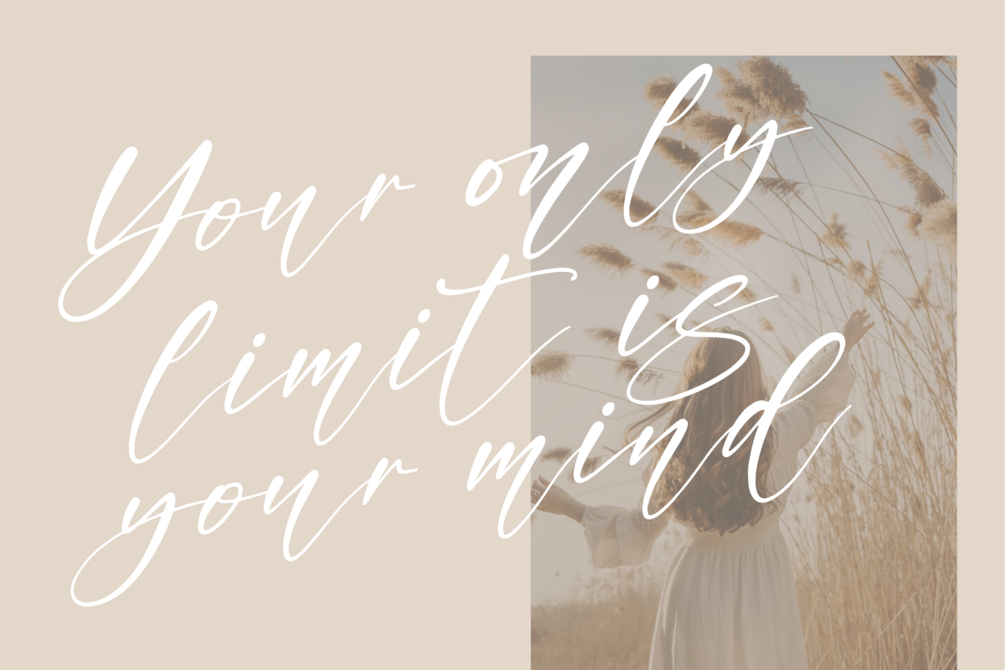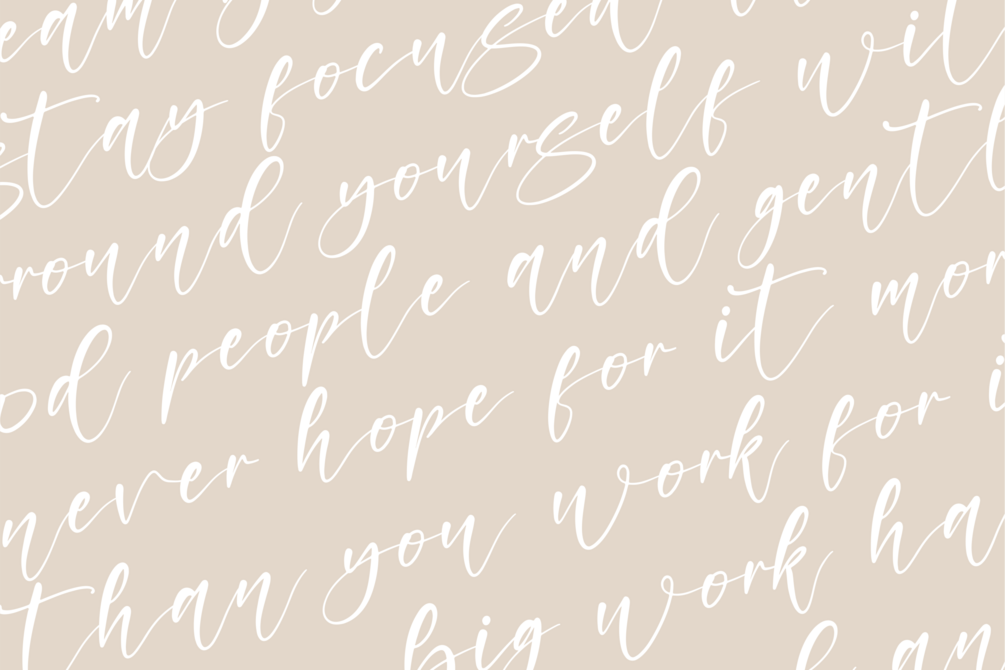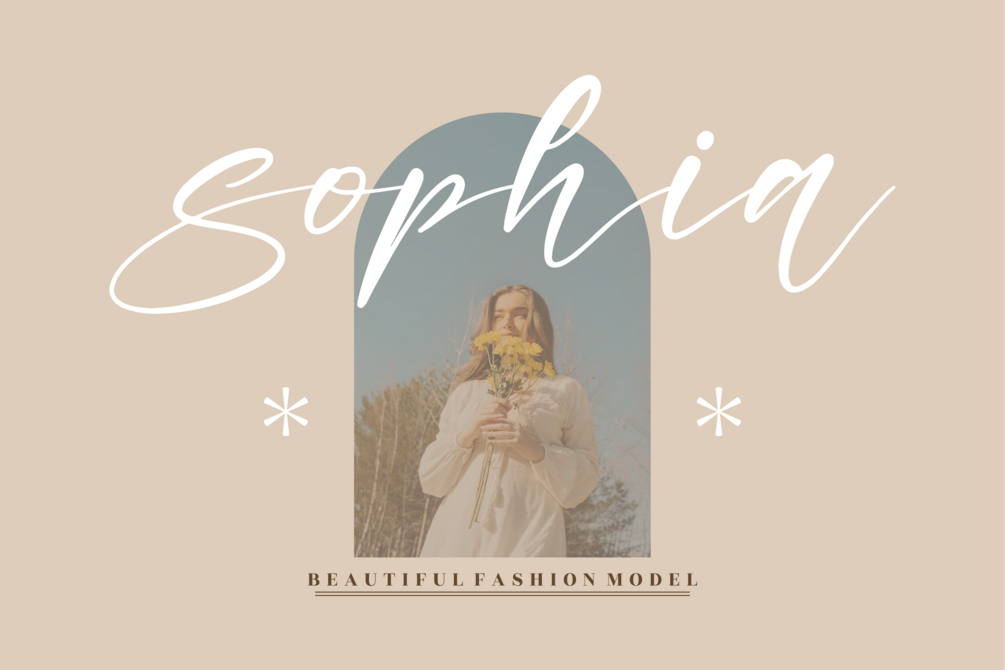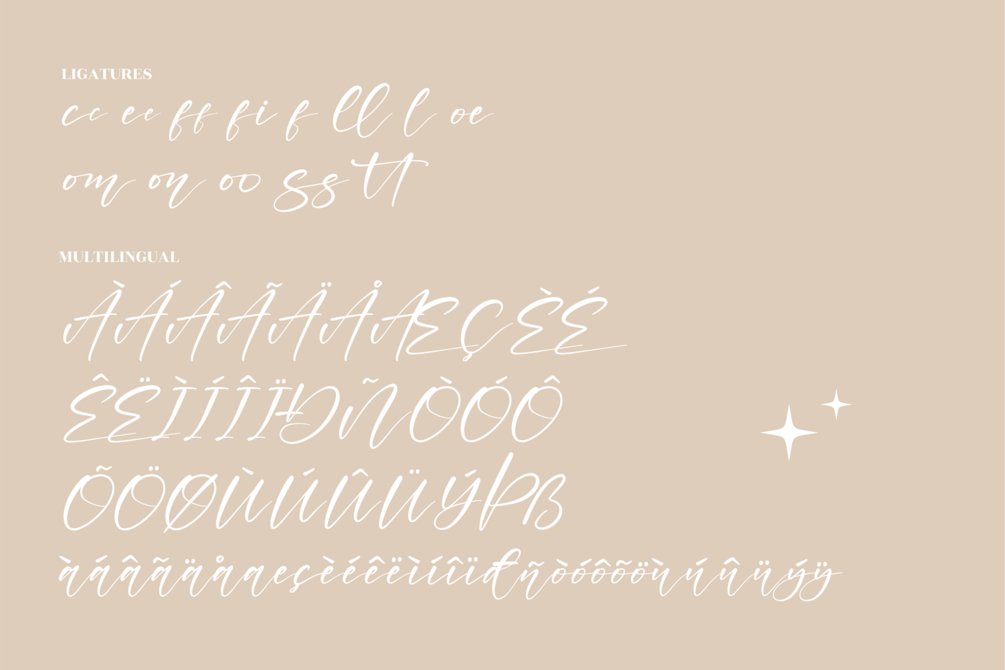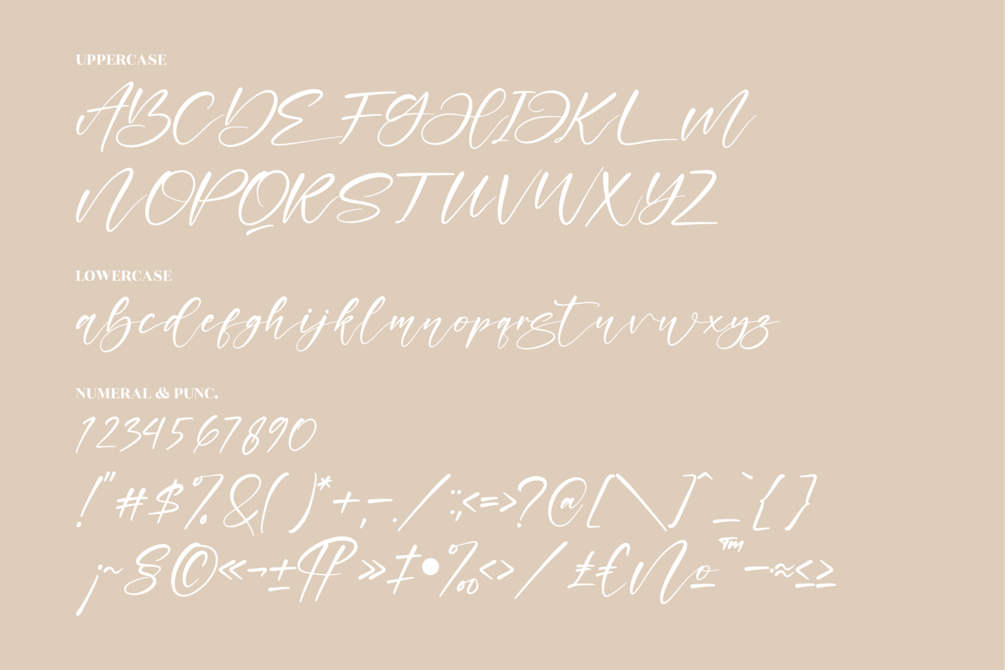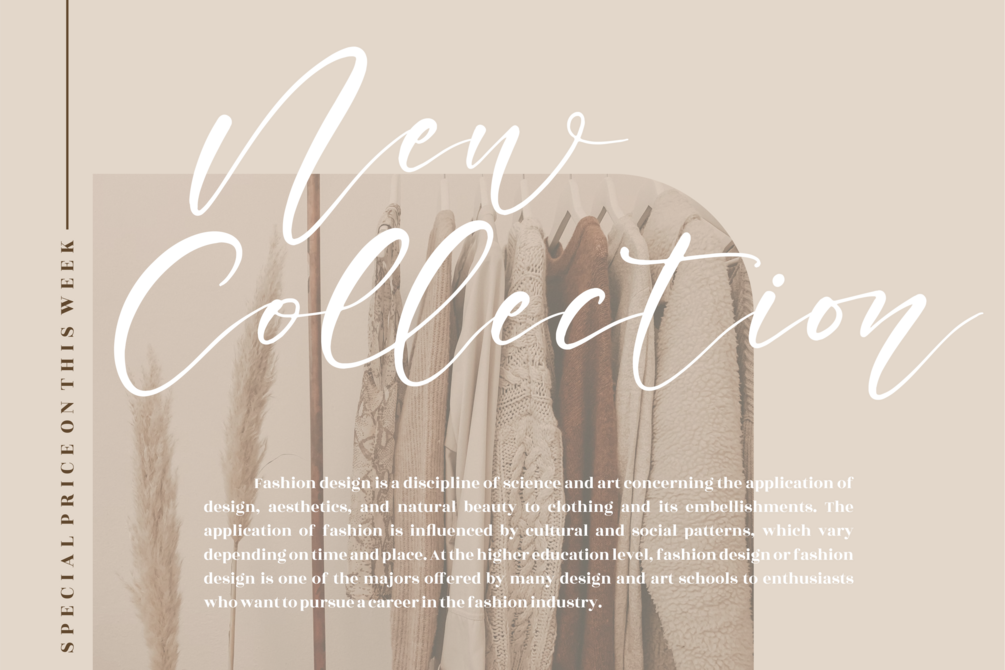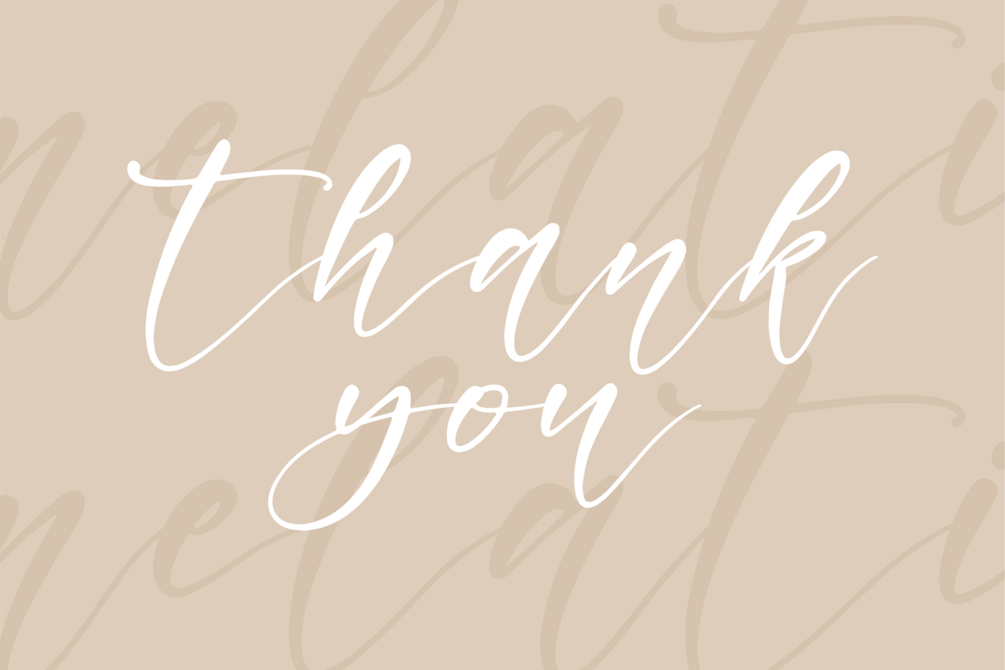
melati - Beautiful Script Font
melati - Beautiful Script Font, from Letternity Studio, is a beautiful script font, suitable for any projects such as: logos, branding projects, homeware designs, product packaging, mugs, quotes, posters, shopping bags, t-shirts, book covers, name card, invitation cards, greeting cards, label, photography, watermark, special events, and all your other lovely projects that need a beautiful script taste.
Ligature, Alternate & Swashes
Fonts include support for 65 languages